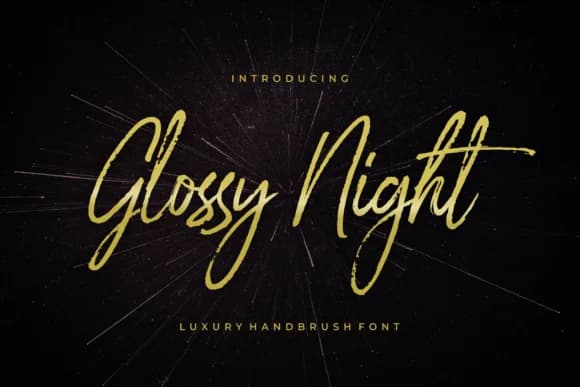
Glossy Night by 50Fox is a flowing handwritten script with an elegant finish that brings sophistication to luxury design work. The smooth, polished letterforms shine across upscale branding projects where refinement matters most, from high-end cosmetics labels to formal event invitations. This script excels when you need a typeface that reads as both approachable and refined at the same time.
Wedding announcements benefit greatly from this font's natural rhythm and careful letterform design. Boutique wine labels, premium product packaging for artisanal makers, and luxury greeting cards all showcase Glossy Night's strengths. The script works equally well in digital form, making it a solid choice for social media graphics from lifestyle brands or Instagram stories where you want something more considered than a standard script. Restaurant menus and high-end business stationery are natural homes for this typeface, and it performs beautifully when used for book covers in the romance and poetry genres.
Glossy Night Font is a script font that shines as a display or heading face. Pair it with a clean sans-serif or serif font for body text β the contrast creates a clear hierarchy while the two styles stay balanced and easy to read.